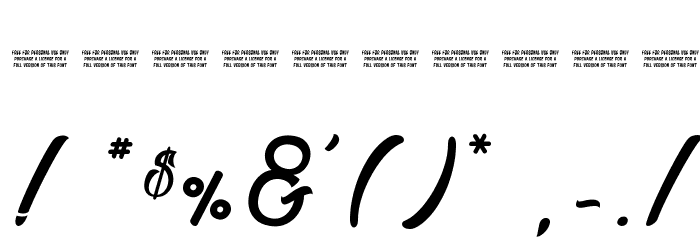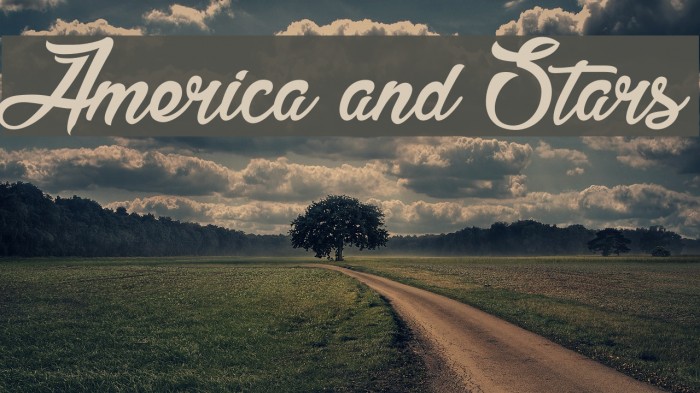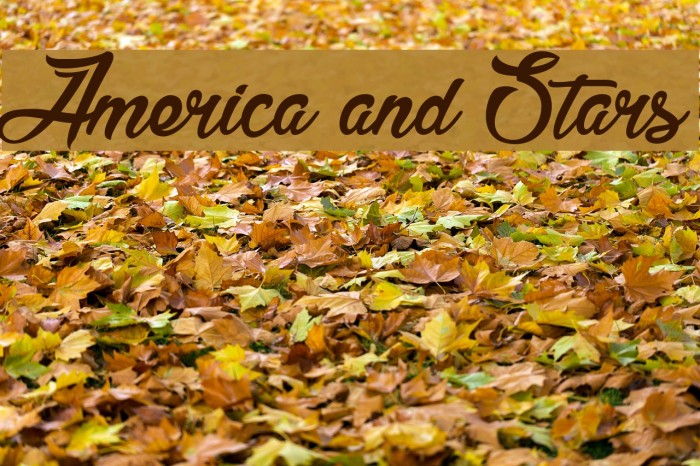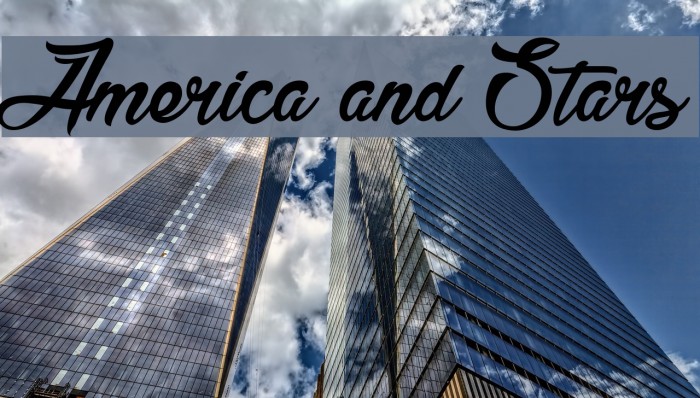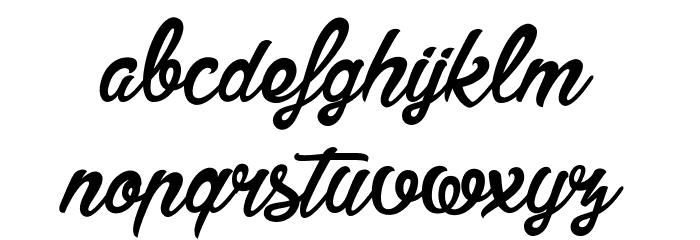
America and Stars Font
America and Stars Description
This font features a bold, cursive style with a flowing, elegant script. The uppercase letters are ornate, with sweeping curves and loops that give a sense of movement and grace. The lowercase letters maintain a consistent style, with smooth connections between characters, enhancing readability while retaining a decorative flair. The numbers and special characters are designed to match the overall aesthetic, with similar curves and embellishments. This font is ideal for projects that require a touch of sophistication and elegance, such as invitations, branding, and decorative headings.
A bold, elegant cursive font with flowing, ornate characters from Script fonts.
- Proposed Projects: Ideal for invitations, branding, decorative headings, and elegant signage.
- Use Case: Headlines, Logos, Invitations